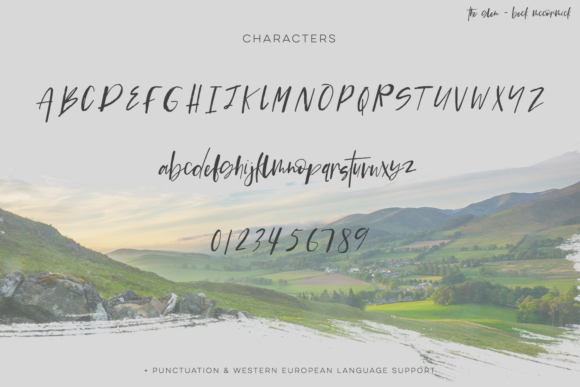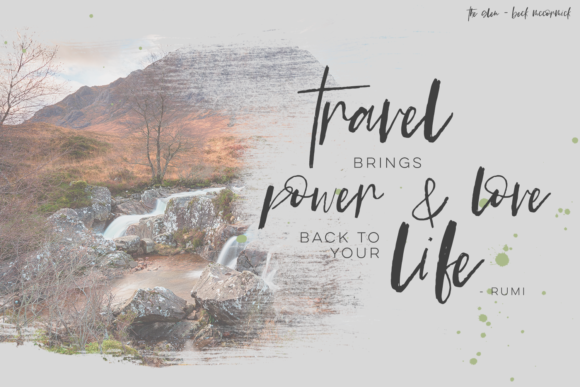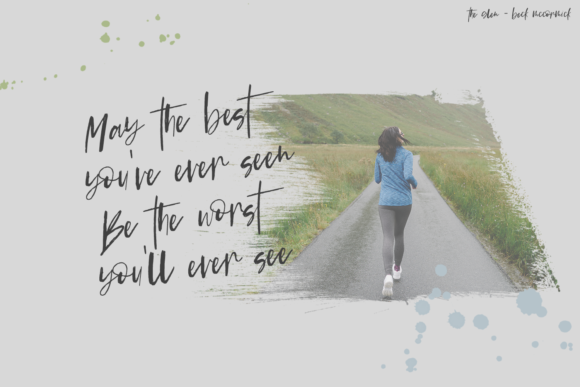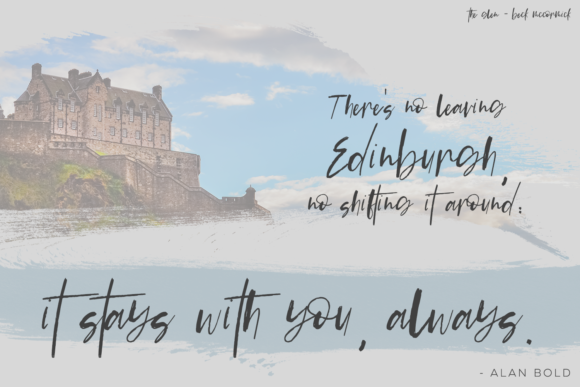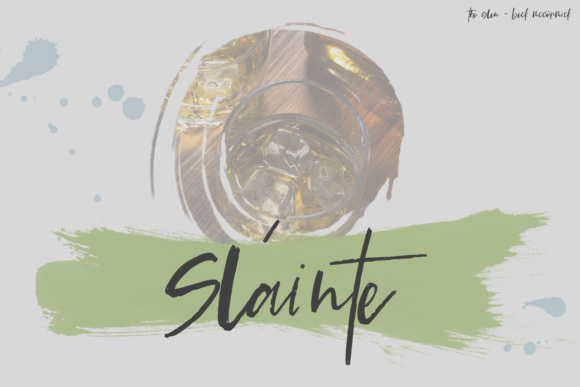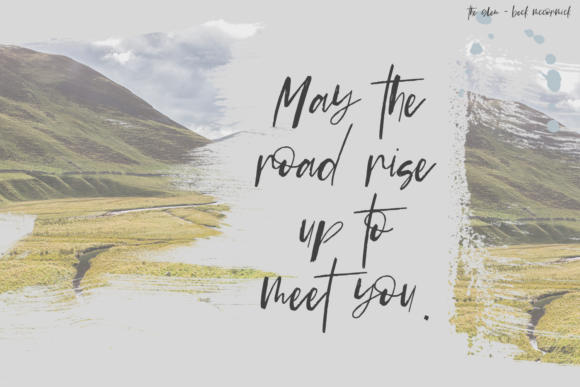
The Glen Script Font
About The Glen Script Font
The Glen is an amazing brush font. It was inspired by the rugged, open Scottish countryside. It has an edgy and free-spirited feel and is a fantastic addition to your font collection.
It’s perfect for modern branding projects, cards, stationary, websites, headers, and much more!